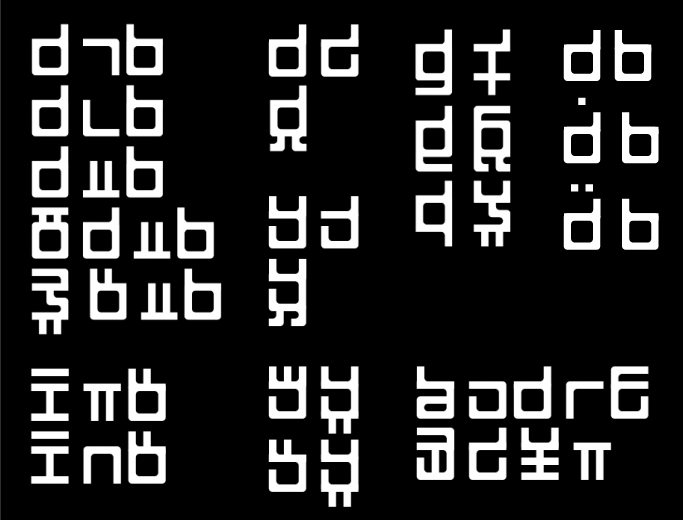
Hi. im creating an agglutinate barbie conlang and want to create an sylabary or abugida for it such as you have. Would you tell me how you did your font and connect the vowel symbols with the consonants? Thank you :)
Here is how I did it:
First, I created the consonant letters with the spaces below them.
Then I created the vowel letters that fit into the spaces below them, and placed them one letter behind the baseline so that they overlap exactly with the previous consonants, connecting the consonants and the vowels.
Finally, I turned on expert mode and performed kerning to narrow the somewhat wide gaps that appear when the consonants follow the vowels.
Another solution is to change the width of the letters by dragging the width line. No kerning needed.